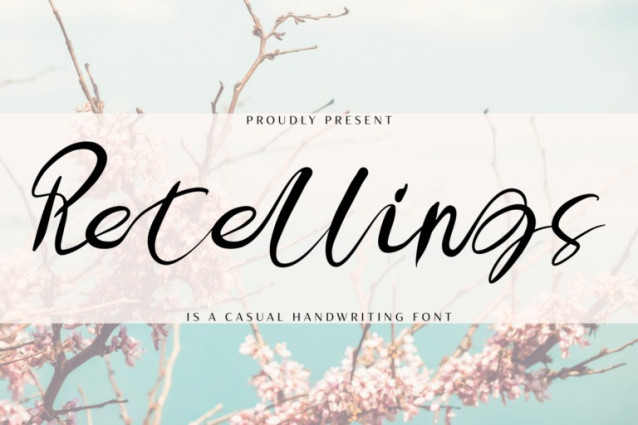
Retellings Font
Retellings Font – A Casual Handwritten Font, a beautifully crafted casual handwritten font designed to bring warmth and personality to your designs. With its smooth strokes, natural flow, and elegant curves, this font is perfect for wedding invitations, branding, packaging, greeting cards, and social media posts.
Features:
✔ Uppercase & Lowercase Letters
✔ 100+ Special Ligatures for fluid handwriting effects
✔ Numerals & Punctuation for full functionality
✔ Accented Characters for multilingual support
Whether you’re working on a romantic, modern, or creative project, Retellings will add a personal and stylish touch to your typography.
About 100 ligatures combined with Stylistic Alternates Font: